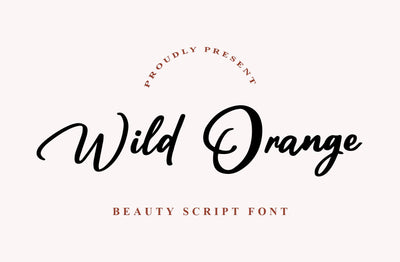
Wild Orange | Modern Script Font
Wild Orange is a script font like handwriting to properly add a combination of beauty and style to your designs. Its different, more natural form that appears spontaneously written is the main character of the font. In addition, the letter details show high contrast in each letter stroke. Wild Orange displays an elegant, creative impression in its design and is suitable for large and small text sizes due to its good legibility.
Wild Orange is best suited for a variety of design projects, such as branding, titles, magazine covers, quotes, invitations, greeting cards, print products, merchandise, social media, etc. Find out more about how to use this font by previewing it.